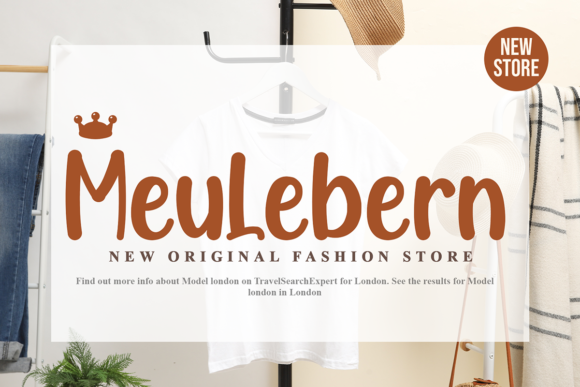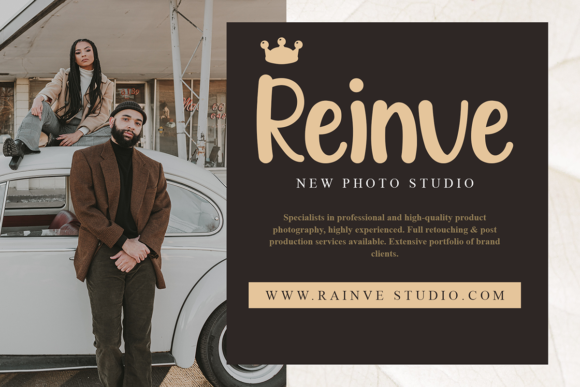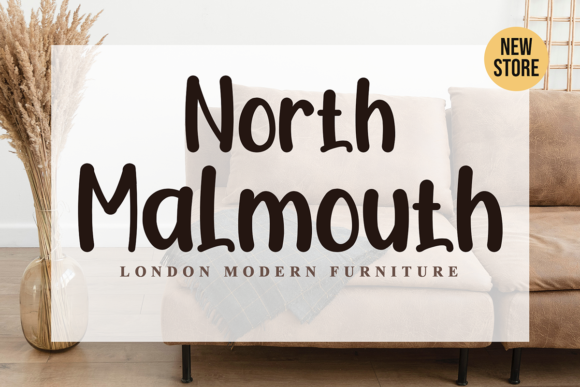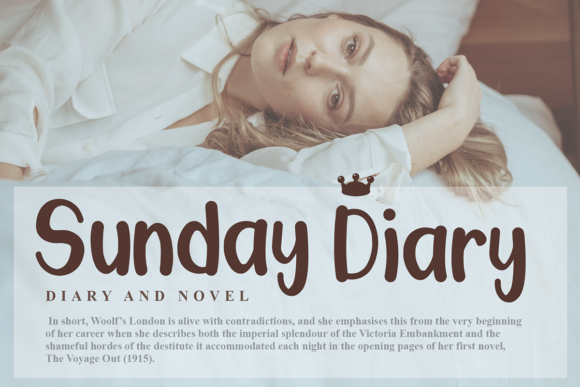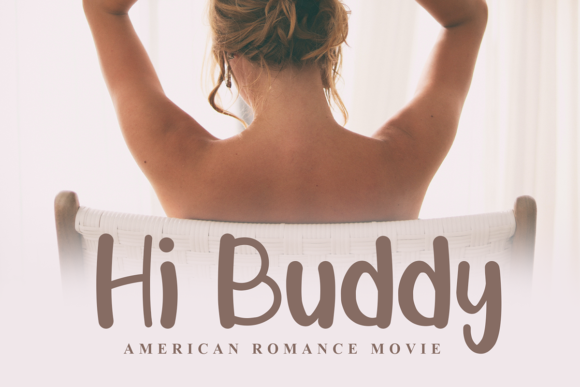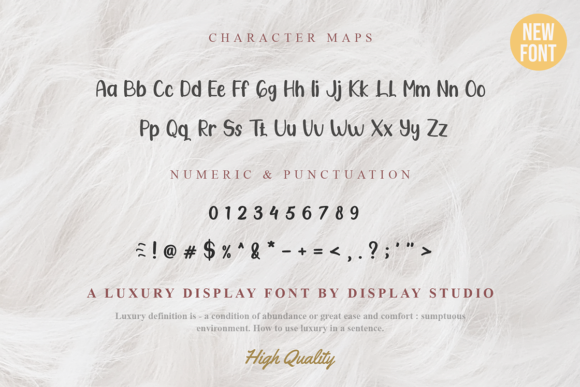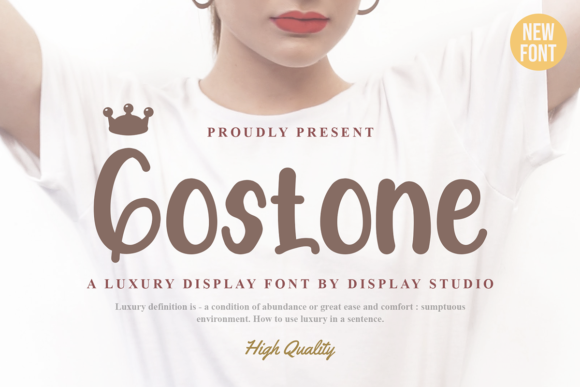
Gostone Font: Elevate Your Designs with Luxury and Boldness
In the world of typography, a font can make or break a design. For designers and crafters looking to add a touch of luxury and boldness to their work, Gostone Font is an excellent choice. This stunning display font is perfect for creating brand logos, invitations, greeting cards, and any other project that requires a statement piece. In this article, we’ll dive into the features and benefits of Gostone Font and explore how it can elevate your designs.
A Luxurious and Bold Display Font
Gostone Font is a luxurious and bold display font that exudes sophistication and elegance. Its sleek lines and curves make it perfect for creating eye-catching headlines, titles, and logos. The font’s bold nature ensures that it will grab attention and leave a lasting impression on your audience. Whether you’re designing a brand logo, invitation, or greeting card, Gostone Font is sure to make your work stand out.
Multilingual Features and Style Variations
One of the standout features of Gostone Font is its multilingual support. This means that you can use the font to create designs in multiple languages, making it perfect for global brands or projects that require international communication. Additionally, Gostone Font comes with style variations, allowing you to experiment with different looks and feels to find the perfect fit for your design.
Gostone Font is PUA (Private Use Area) encoded, which means that you can access all of the glyphs and swashes with ease. This encoding allows you to unlock the full potential of the font, giving you the creative freedom to experiment with different design elements. With PUA encoding, you can access a wide range of characters, including ligatures, alternates, and swashes, making it easy to add a personal touch to your designs.
Gostone Font is perfect for designers and crafters who want to add a touch of luxury and sophistication to their work. Whether you’re creating brand logos, invitations, greeting cards, or any other type of project, this font is sure to impress. Its bold and eye-catching nature makes it perfect for designers who want to create statement pieces that grab attention. Additionally, the font’s multilingual features and style variations make it an excellent choice for crafters who want to create unique and personalized designs.
Use Cases for Gostone Font
So, what can you use Gostone Font for? The possibilities are endless! Here are a few ideas to get you started:
- Brand Logos: Use Gostone Font to create a bold and eye-catching logo that represents your brand.
- Invitations: Add a touch of luxury and sophistication to your invitations with Gostone Font.
- Greeting Cards: Create stunning greeting cards that will leave a lasting impression on your recipients.
- Posters: Use Gostone Font to create eye-catching posters that grab attention.
- Social Media Graphics: Add a touch of luxury and sophistication to your social media graphics with Gostone Font.
In conclusion, Gostone Font is a luxurious and bold display font that is perfect for designers and crafters who want to add a touch of sophistication and elegance to their work. With its multilingual features, style variations, and PUA encoding, this font is sure to elevate your designs and make them stand out. Whether you’re creating brand logos, invitations, greeting cards, or any other type of project, Gostone Font is an excellent choice. So why wait? Download Gostone Font today and start creating stunning designs that will leave a lasting impression on your audience.